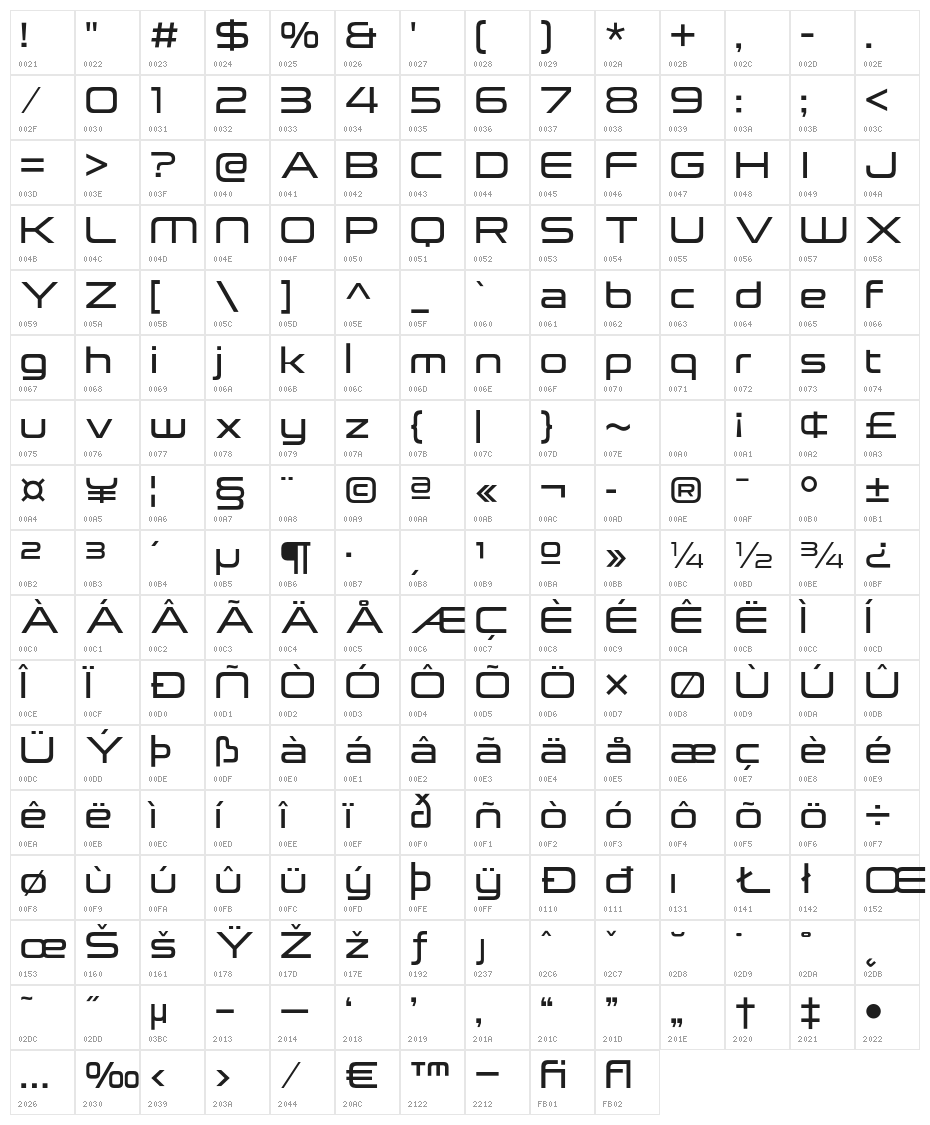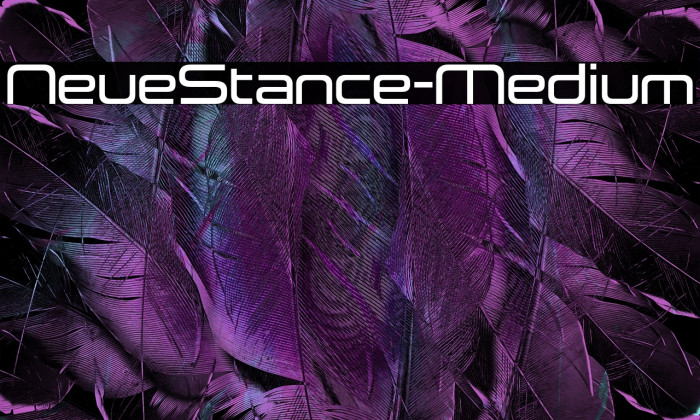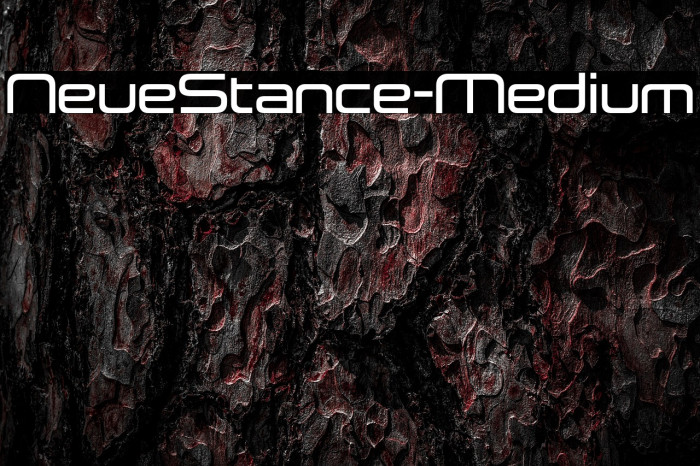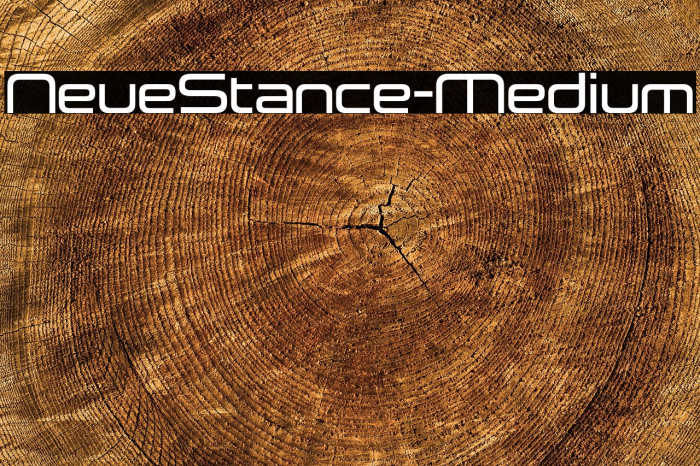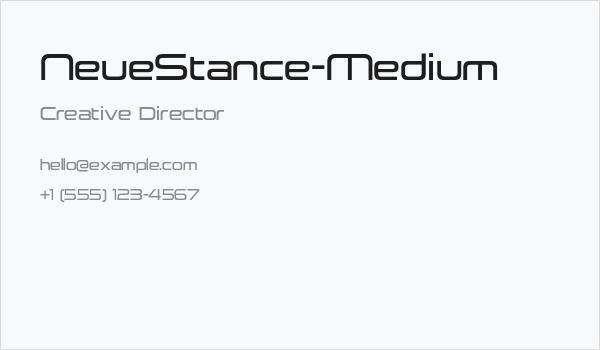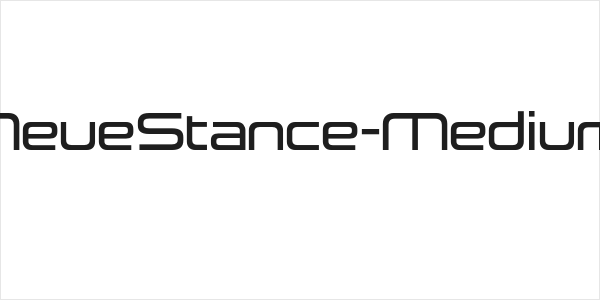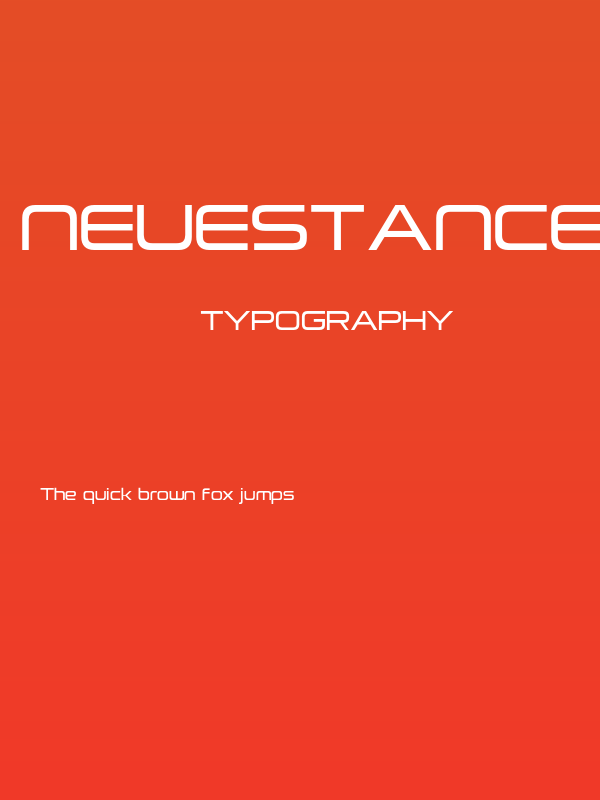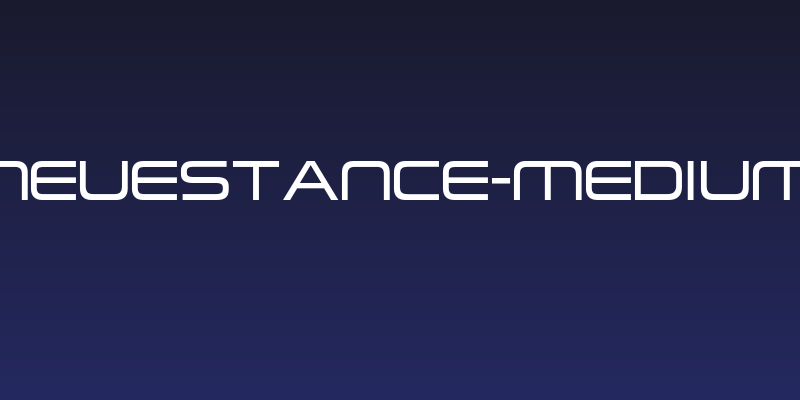
NeueStance-Medium Font
NeueStance-Medium Description
This font exhibits a modern and sleek design, characterized by its geometric and clean lines. The uppercase and lowercase letters maintain a consistent width, creating a uniform appearance. The numerals and special characters follow the same design principles, ensuring a cohesive look across all elements. The font's structure is minimalistic, with a focus on readability and simplicity, making it suitable for various digital and print applications. Its contemporary style is enhanced by the absence of serifs, giving it a streamlined and efficient aesthetic.
Use CaseHeadlines, Logos, Digital interfaces
Proposed ProjectsIdeal for tech branding, digital interfaces, modern advertising, and minimalist design projects.